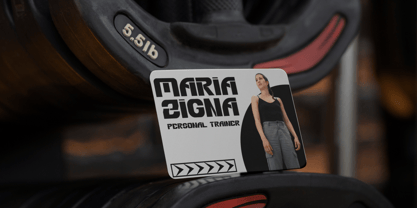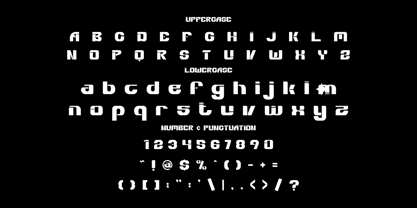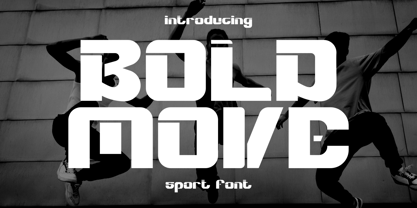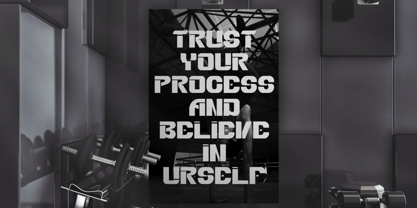
Bold Move
by Shanaf
The Bold Move Font Family was designed by Yesie Erma Yunita and published by Shanaf. Bold Move contains 1 styles. More about this family
Bold Move Sport Font brings an electrifying sense of power and determination to any creative layout. Inspired by contemporary sports culture and urban strength, this font features blocky geometric forms with distinct angular cuts and calculated negative space. Each letter is meticulously constructed to evoke movement and boldness, making it perfect for gym posters, athletic branding, esports, product packaging, or motivational social media campaigns. The sharp uppercase and lowercase character sets create maximum visibility and dominance in any display context.
This font thrives in bold visual environments—from water bottles to workout apparel branding, or business cards for personal trainers. Bold Move ensures legibility without sacrificing personality. Whether you're designing a sports logo, a gym wall quote, or product packaging, this typeface empowers your design with confident energy. Created to elevate high-intensity themes, Bold Move is your go-to weapon for athletic, modern, and energetic visual branding. Take your typography game to the next level with Bold Move.